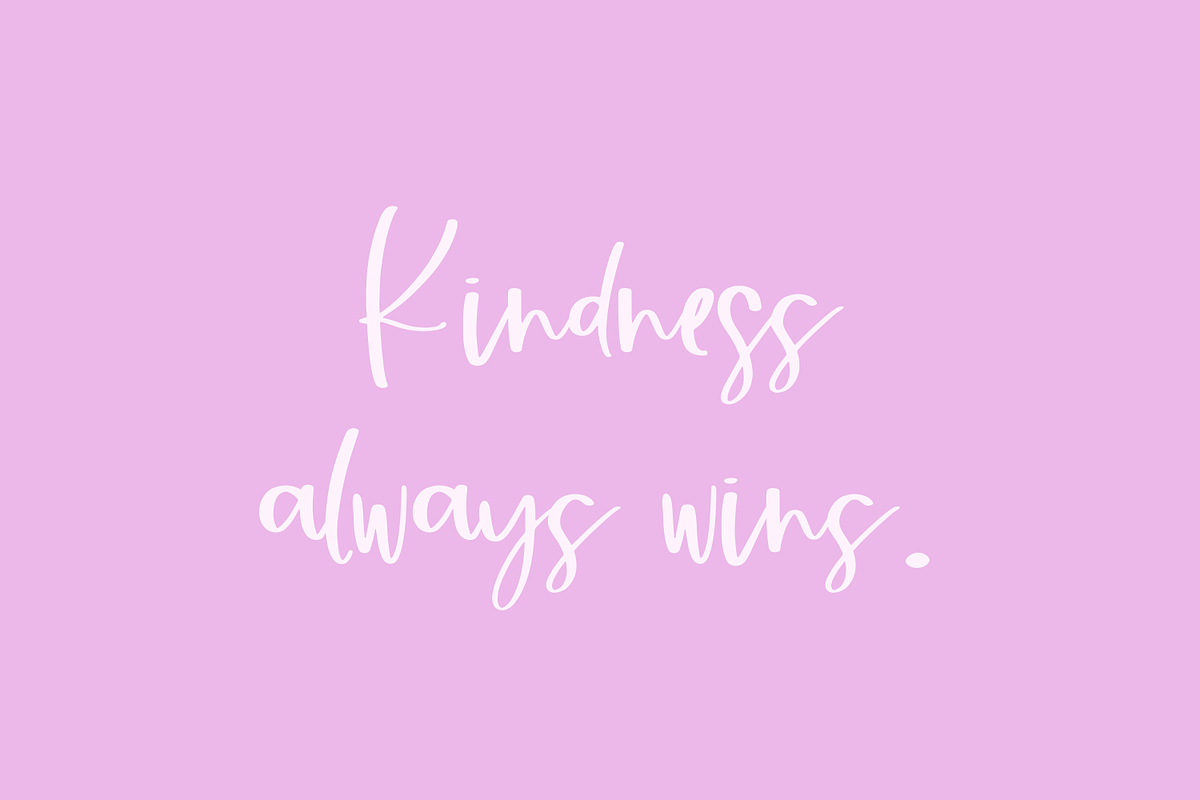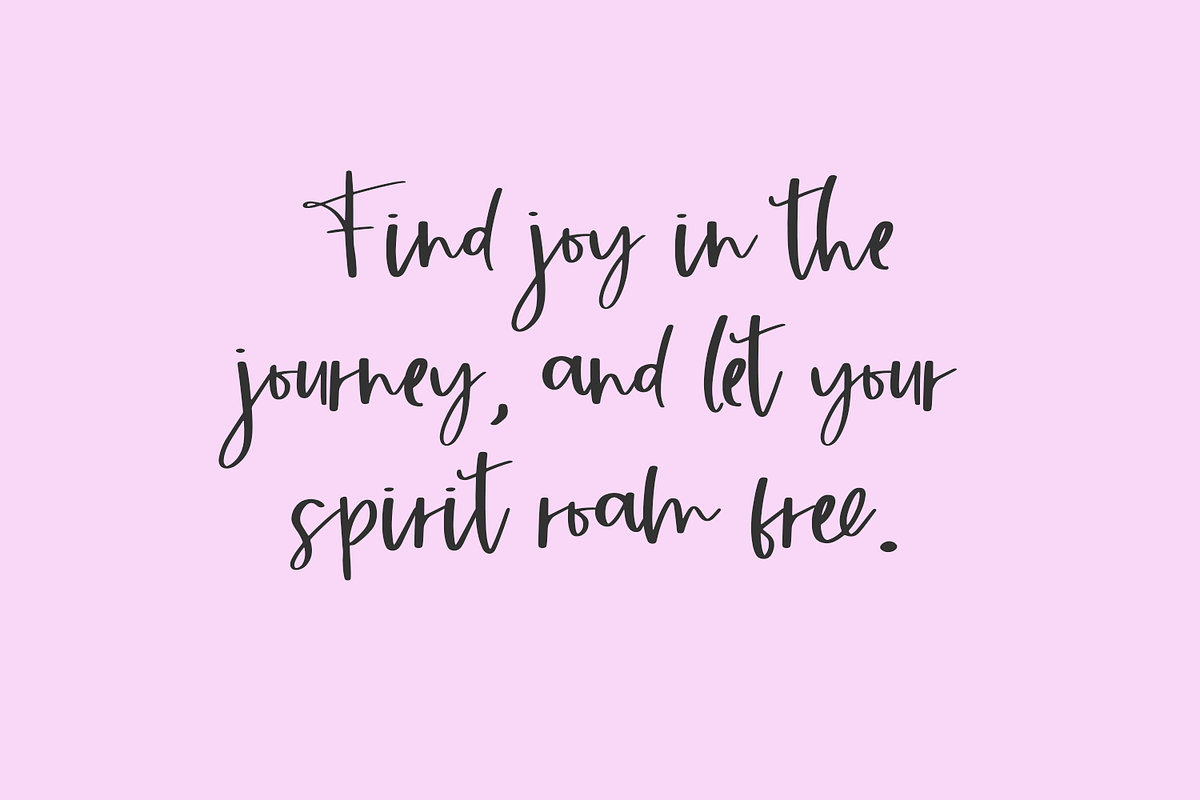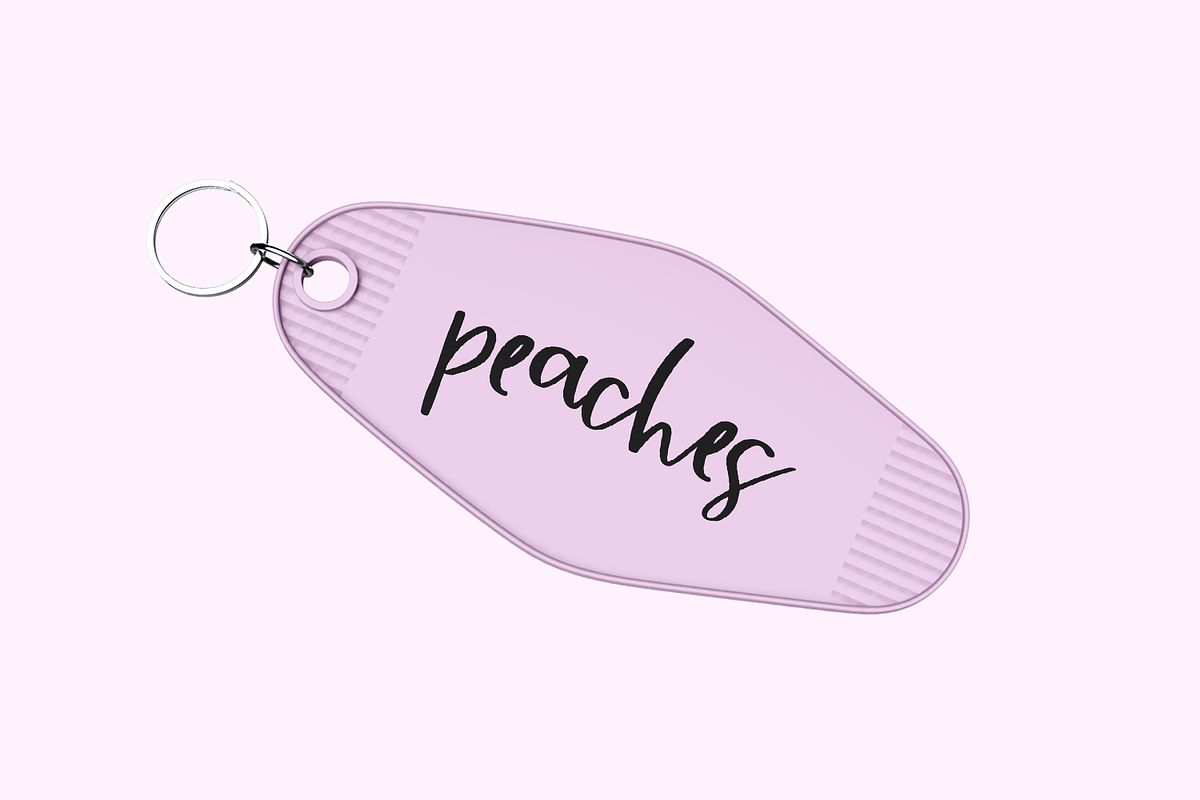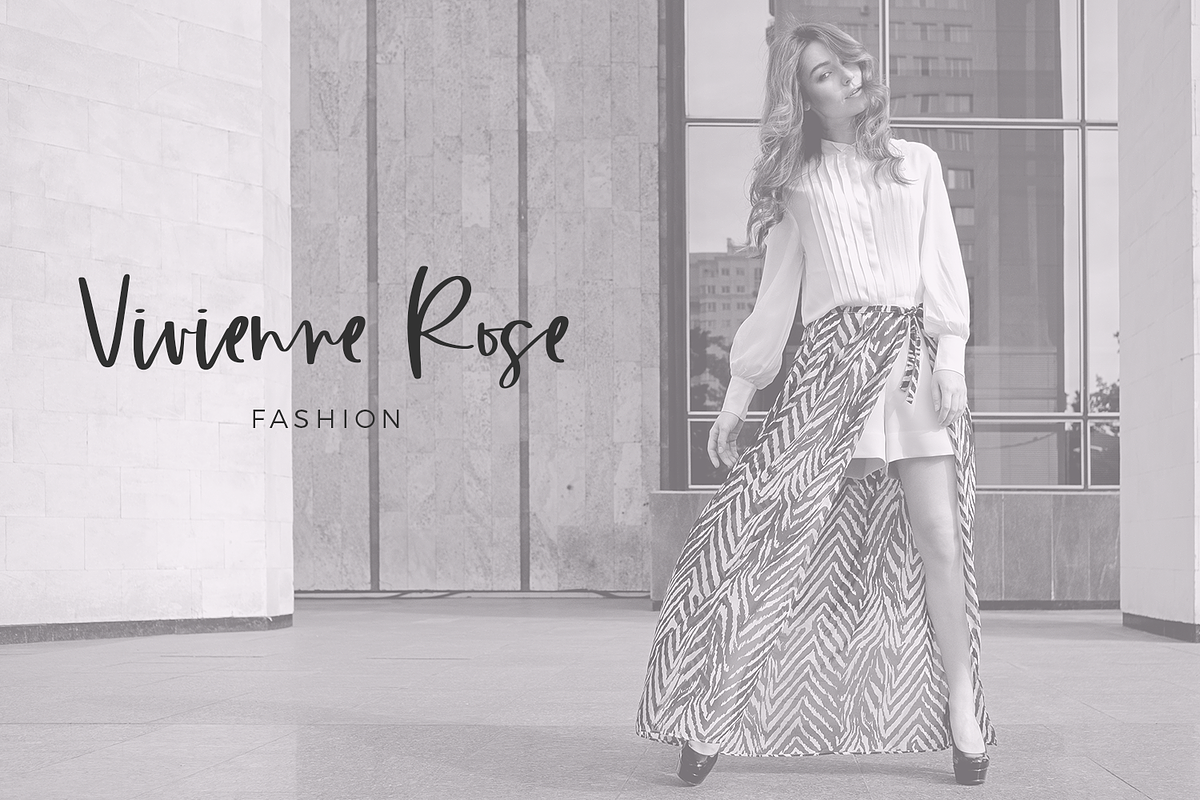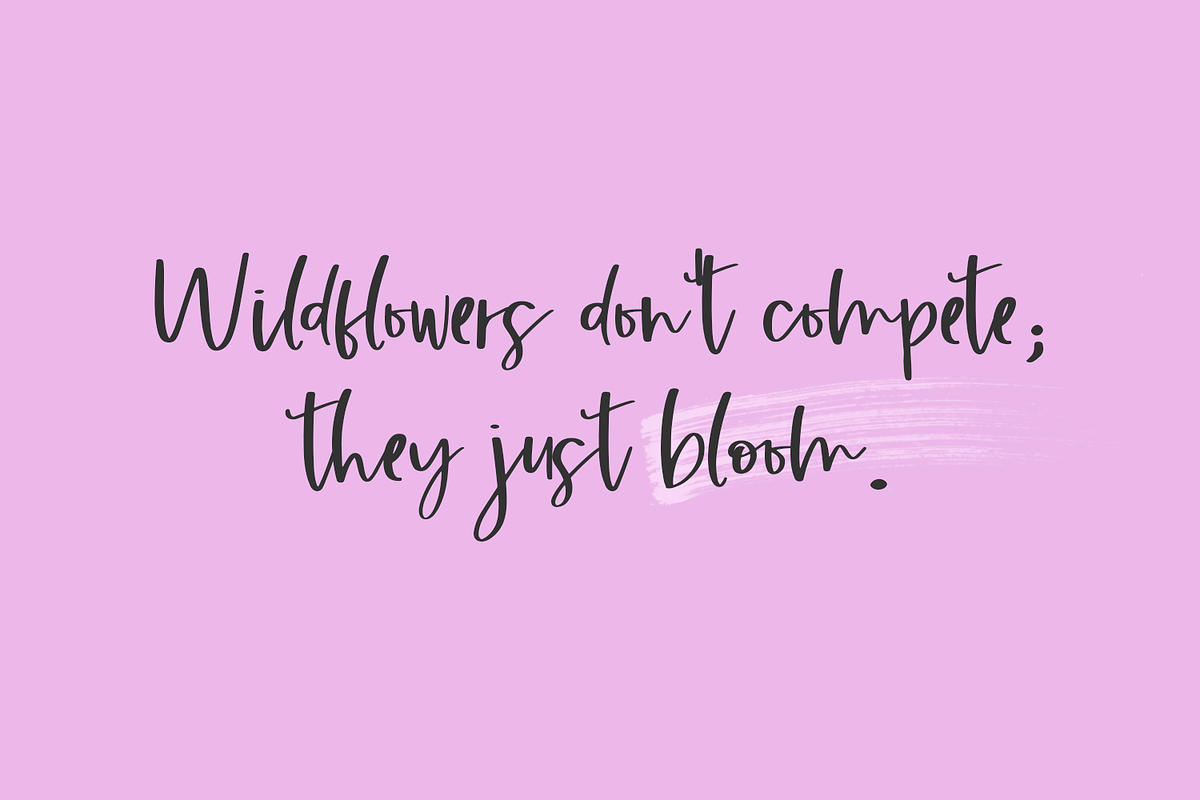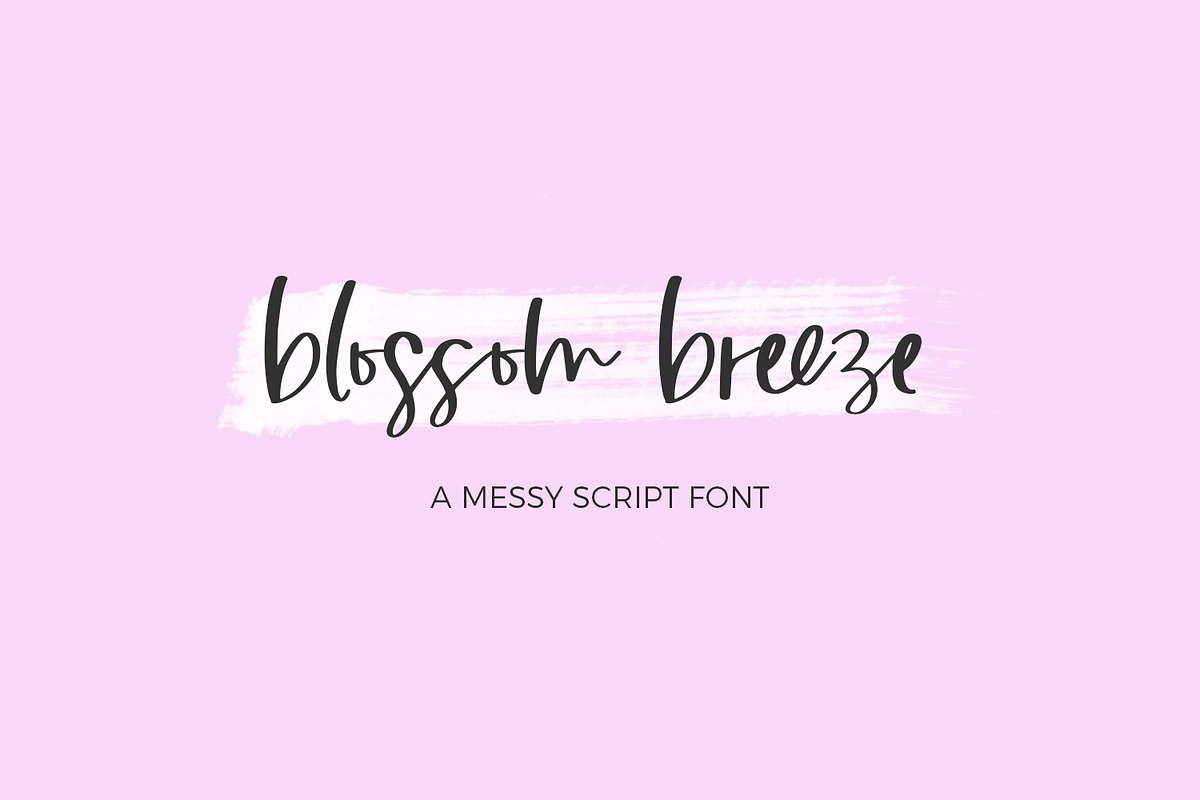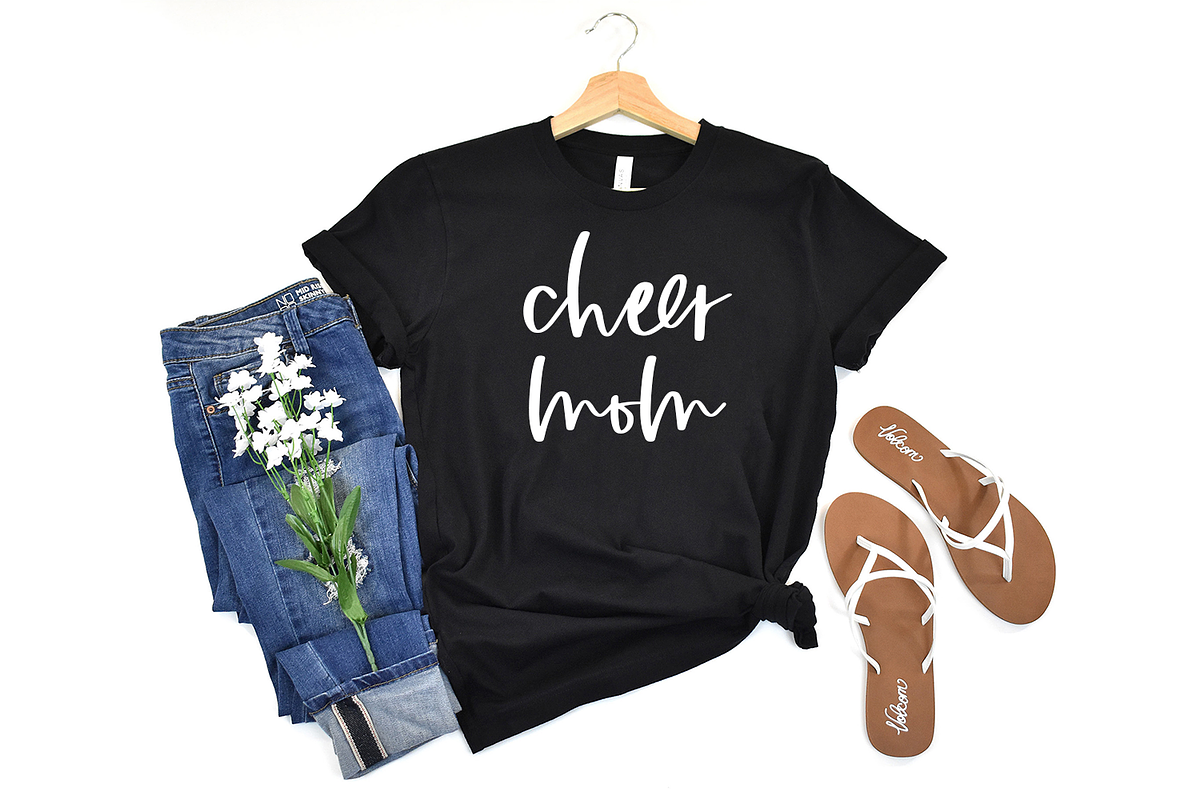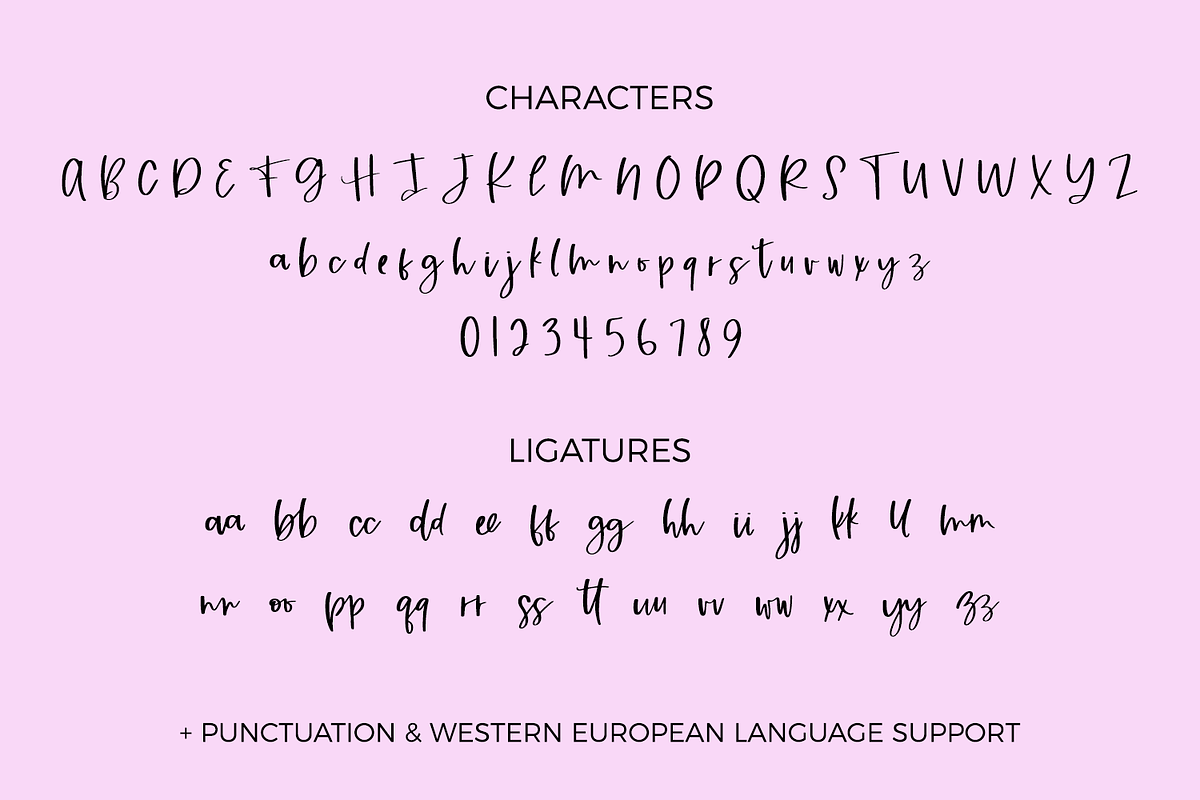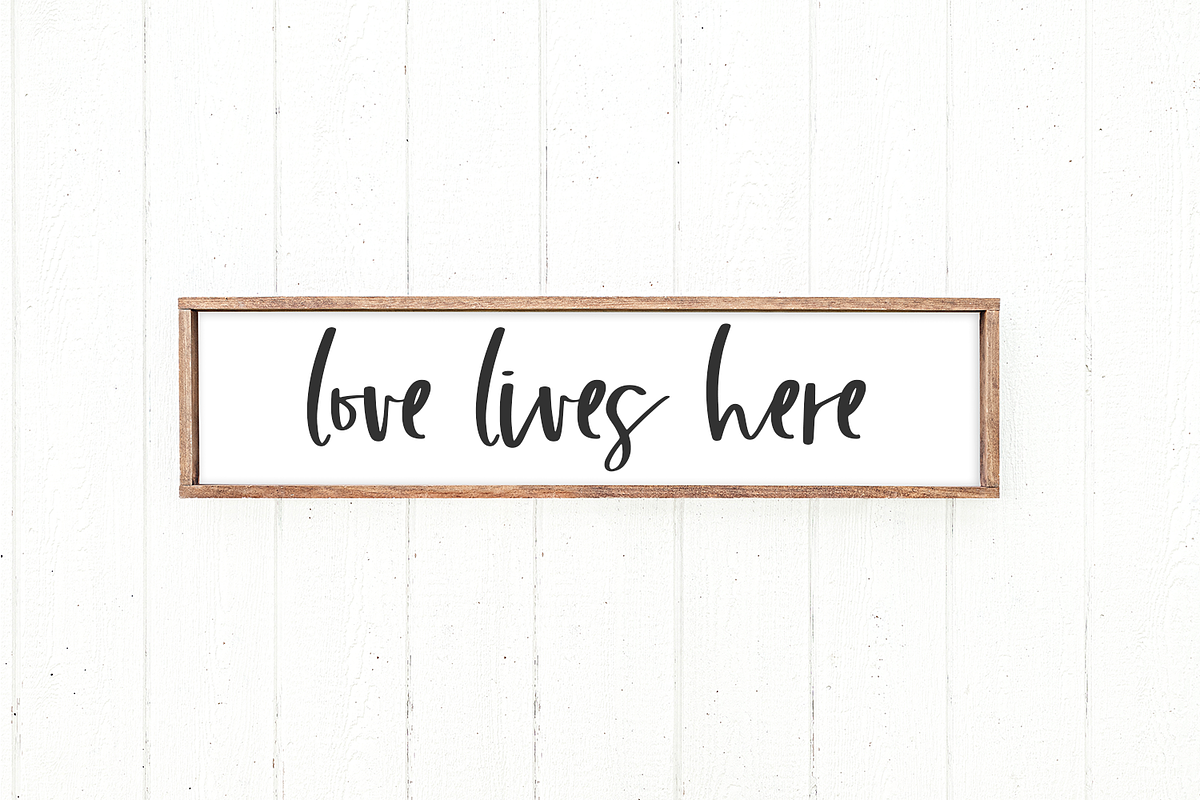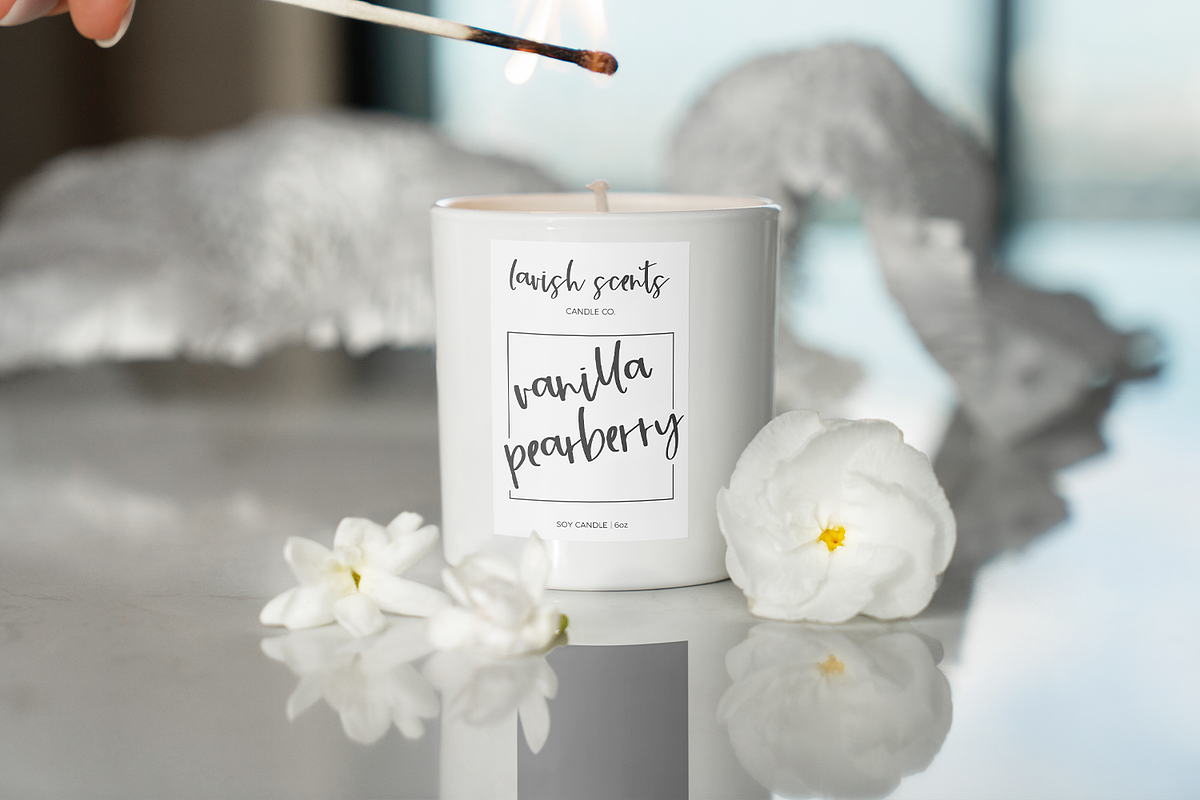
Blossom Breeze Script
Blossom Breeze is a modern calligraphy script. This cursive font is contemporary and casual, and is the perfect fit for logos, branding, paper products, and website elements. It can also be used for print design, social media, and marketing items. Blossom Breeze features a smooth edge, which also makes it a great fit for crafting & vinyl cutting machines for your crafty homemade designs.
Blossom Breeze includes:
- full upper + lowercase characters
- numbers + punctuation
- 26 double letter ligatures